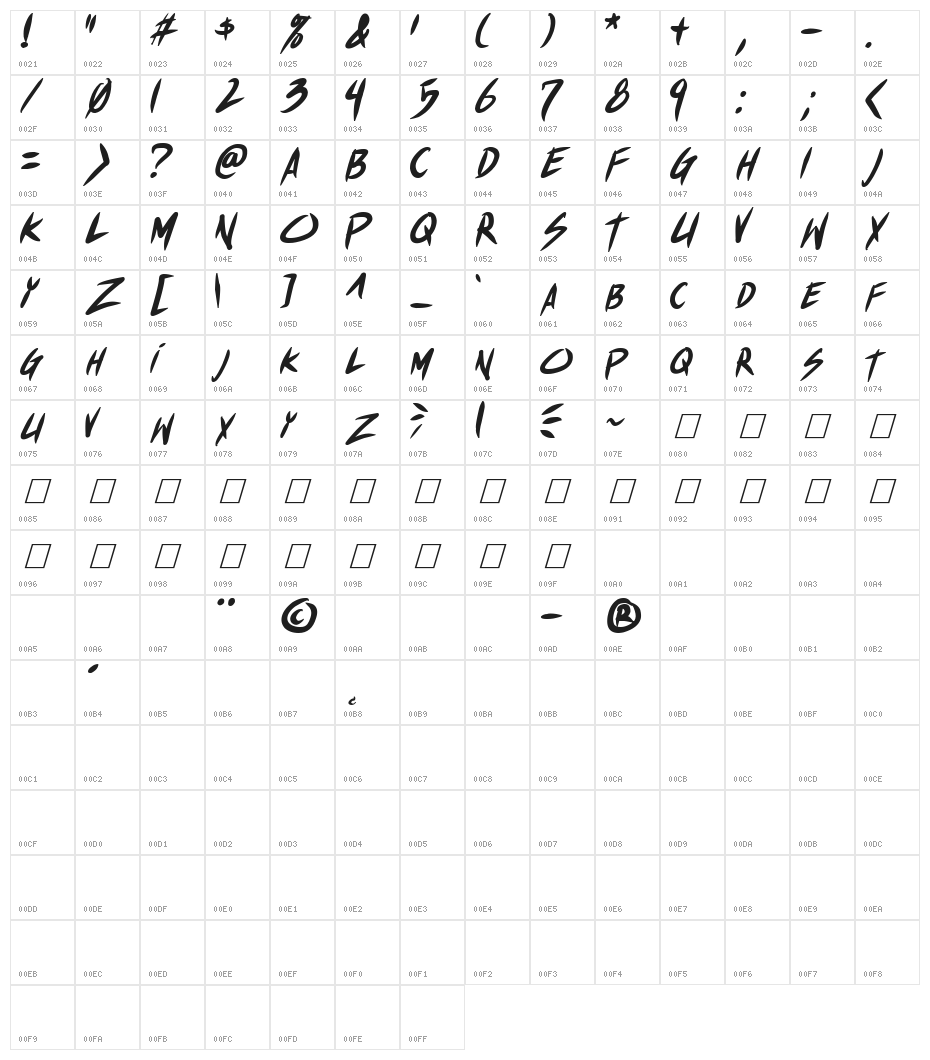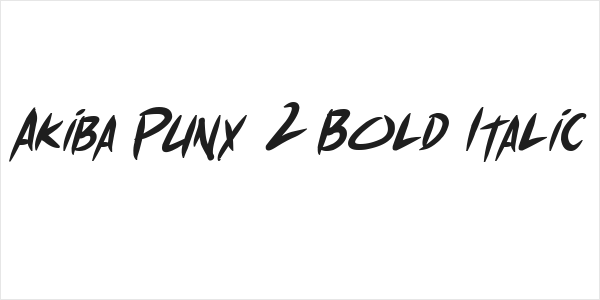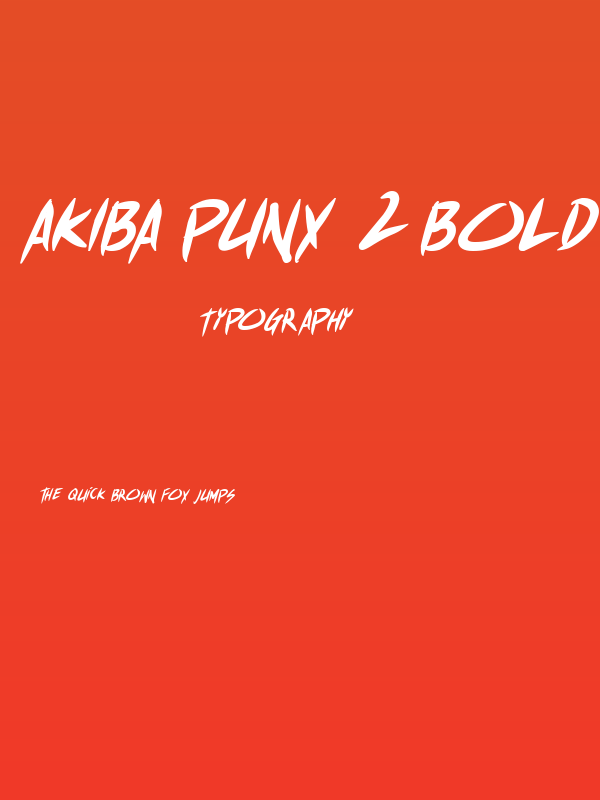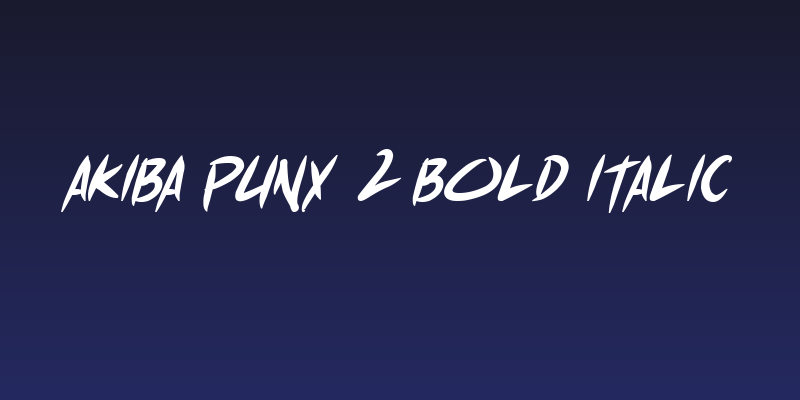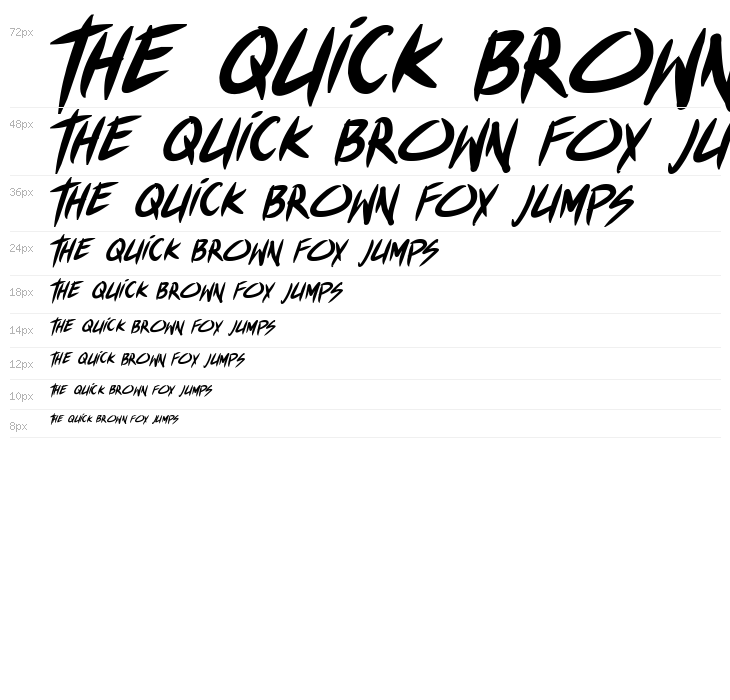
Akiba Punx 2 Bold Italic Font
Akiba Punx 2 Bold Italic Description
This font features a bold and dynamic style with a strong italic slant, giving it a sense of movement and energy. The characters are thick and expressive, with sharp angles and a slightly rough texture that adds to its edgy appearance. The uppercase and lowercase letters maintain a consistent style, while the numbers and special characters are equally bold and impactful. This font's unique design makes it stand out, perfect for projects that require a strong visual statement.
| Proposed Projects | Ideal for posters, album covers, streetwear branding, and any project needing a bold, energetic typeface. |